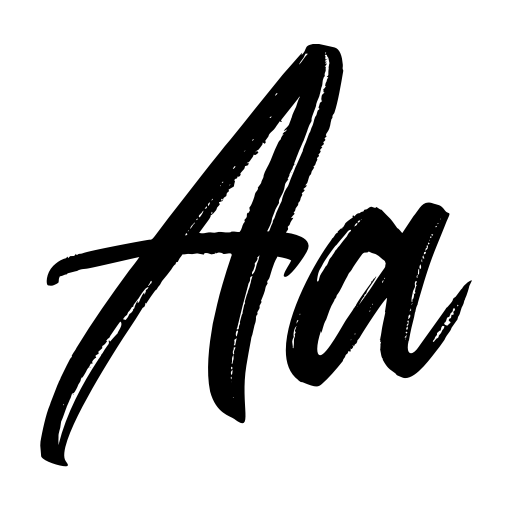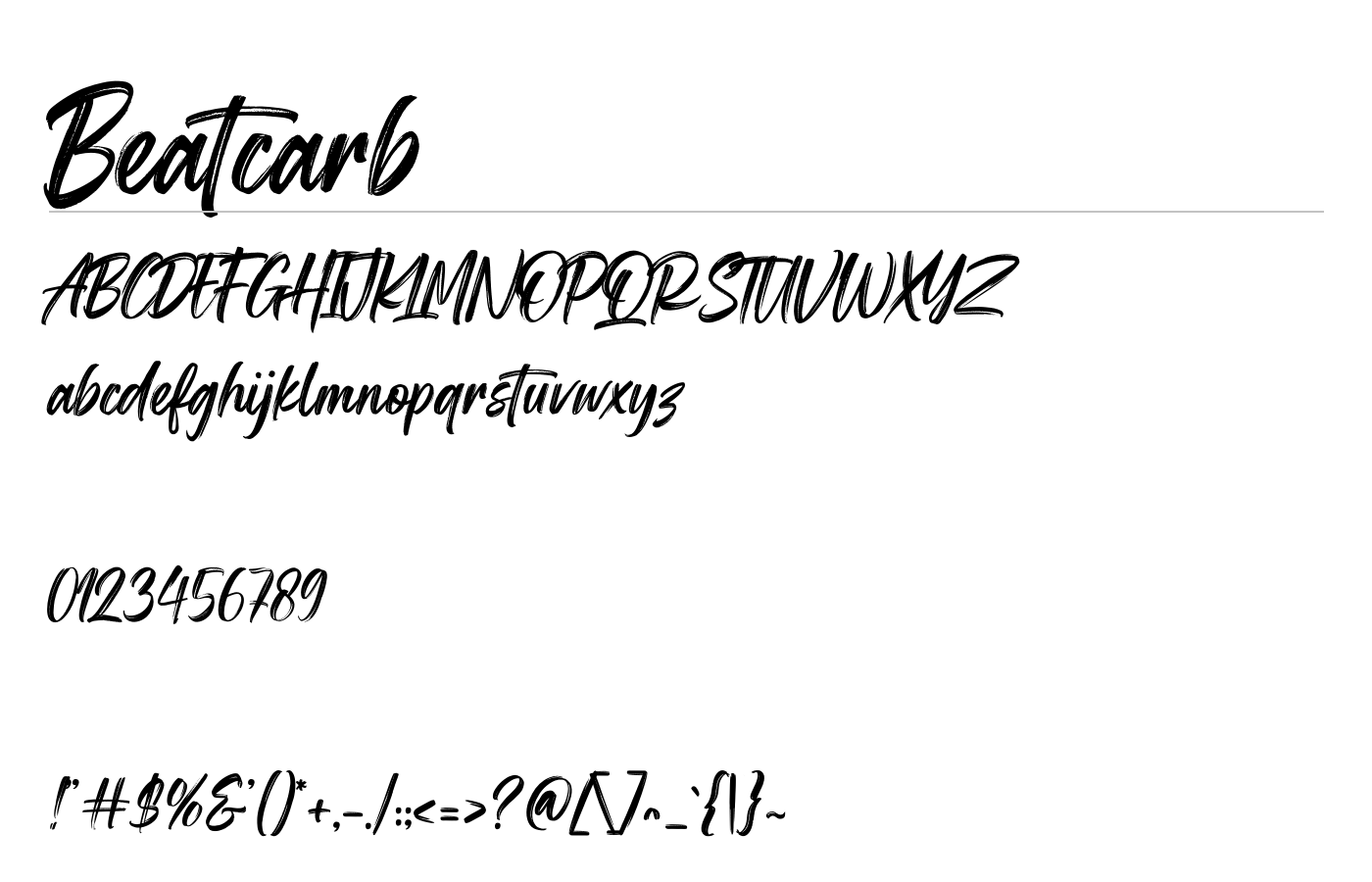
Beatcarb is a lively brush script font with a bold and energetic style, featuring textured, hand-painted strokes that give it a natural, artistic feel. Its tall, slightly condensed letterforms and casual flow make it perfect for creative projects seeking a dynamic and personal touch, such as branding, posters, or social media graphics. This font stands out with its expressive personality, making it ideal for designs that want to convey creativity and spontaneity.
Beatcarb Font